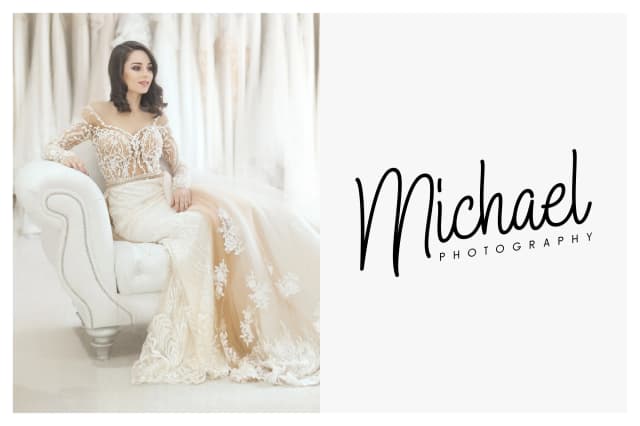
1 / 6About Hollybear Font
Hollybear Font by Runsell Graphic is a handwritten monoline script that brings warmth and personality to contemporary typography. With its flowing, informal style, this typeface excels at humanizing designs that demand authentic character and personal connection. The complete package includes both a decorative script style and a regular companion version, plus bonus swash alternates that provide creative flexibility and visual interest across different design applications.
This versatile typeface shines across numerous practical applications: wedding invitation suites where handwritten charm enhances formal celebrations, greeting card designs that forge emotional connections with readers, and branding projects for boutique shops pursuing approachable yet refined aesthetics. It's equally effective for personalized stationery, cafe menu graphics, lifestyle product packaging, and small-business social media content that needs a distinctly human touch. The monoline construction maintains excellent legibility at any size while preserving the typeface's inherent charm and hand-drawn character.
Hollybear's distinctive blend of approachability and subtle sophistication makes it an invaluable resource for designers balancing playful and professional objectives simultaneously. Whether creating intimate, small-scale designs or scaling across larger marketing applications, the multiple style options ensure visual consistency without sacrificing creative expression. Discover Hollybear Font on Creative Fabrica and introduce authentic handwritten elegance to your design toolkit.
Hollybear Font is a script font that shines as a display or heading face. Pair it with a clean sans-serif or serif font for body text β the contrast creates a clear hierarchy while the two styles stay balanced and easy to read.